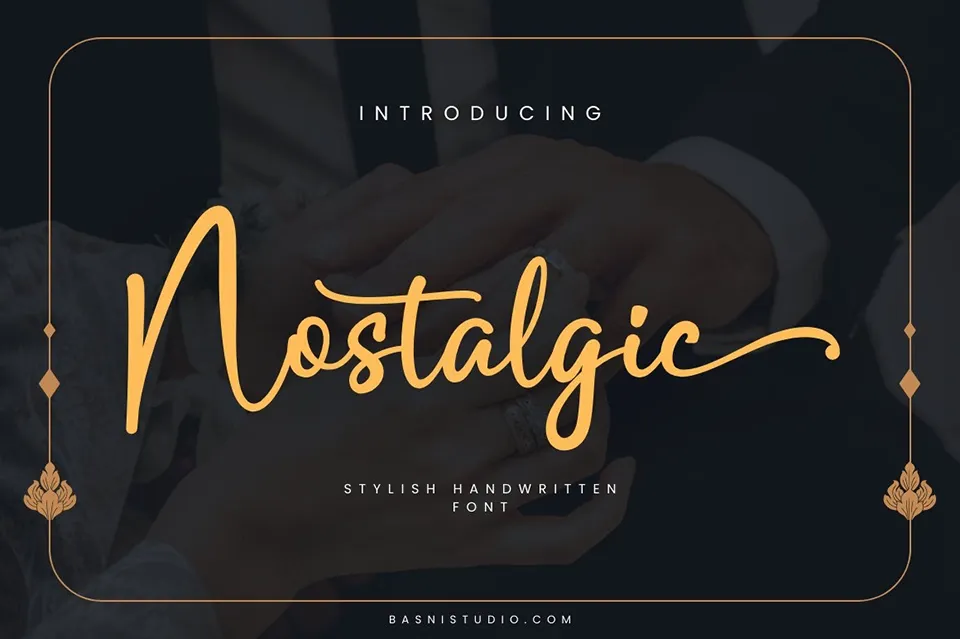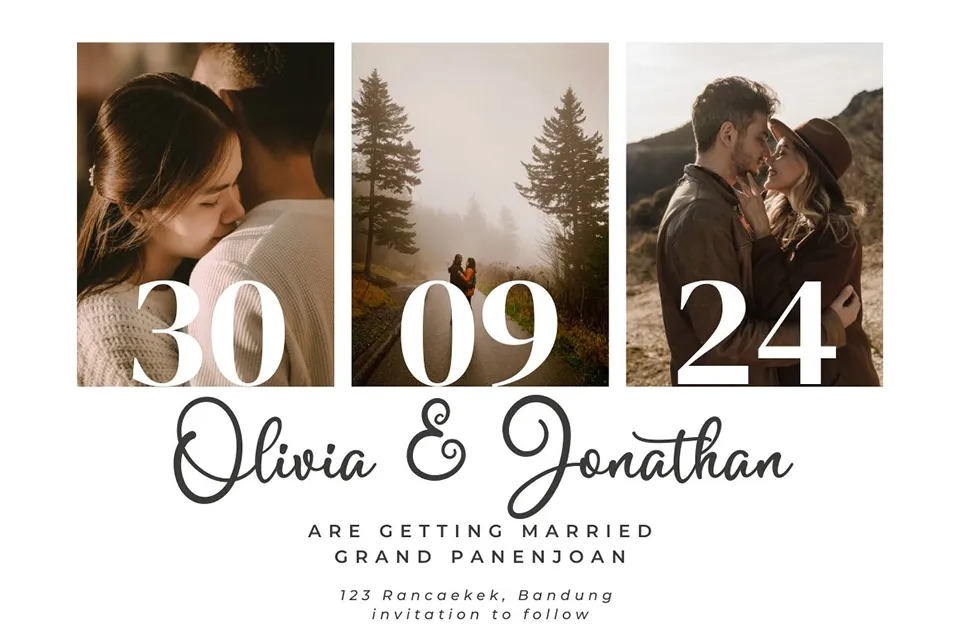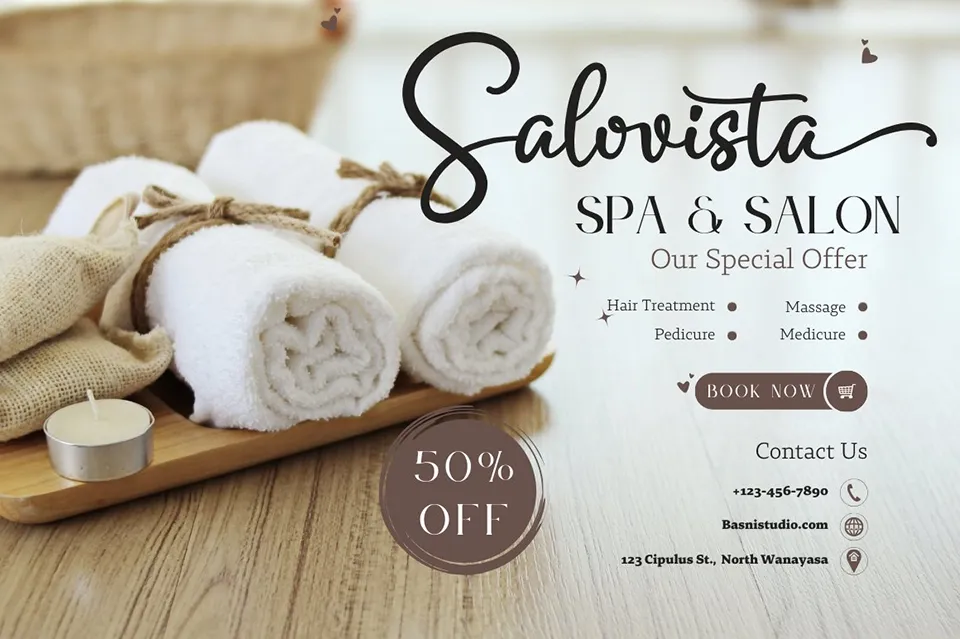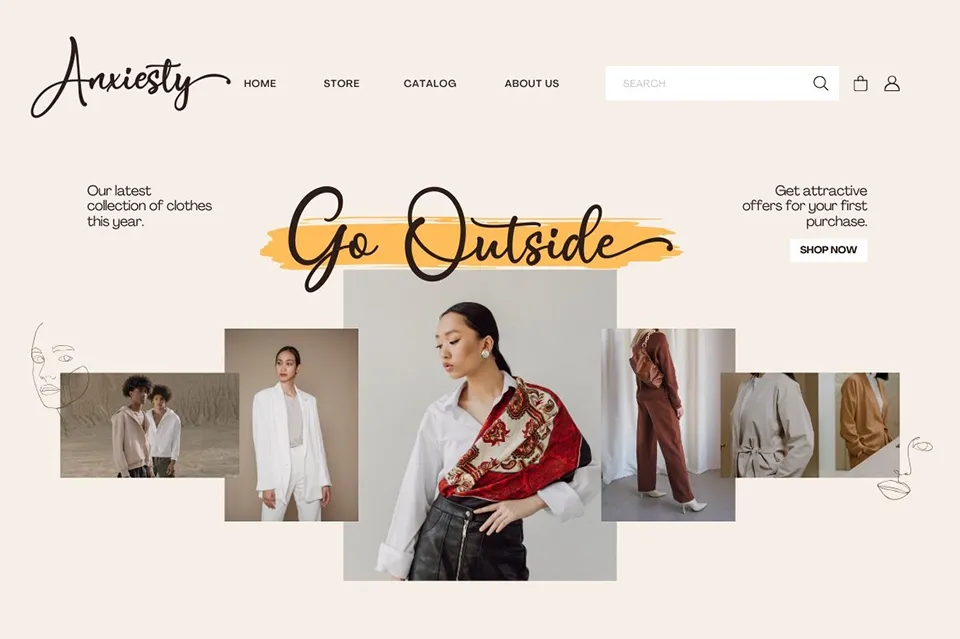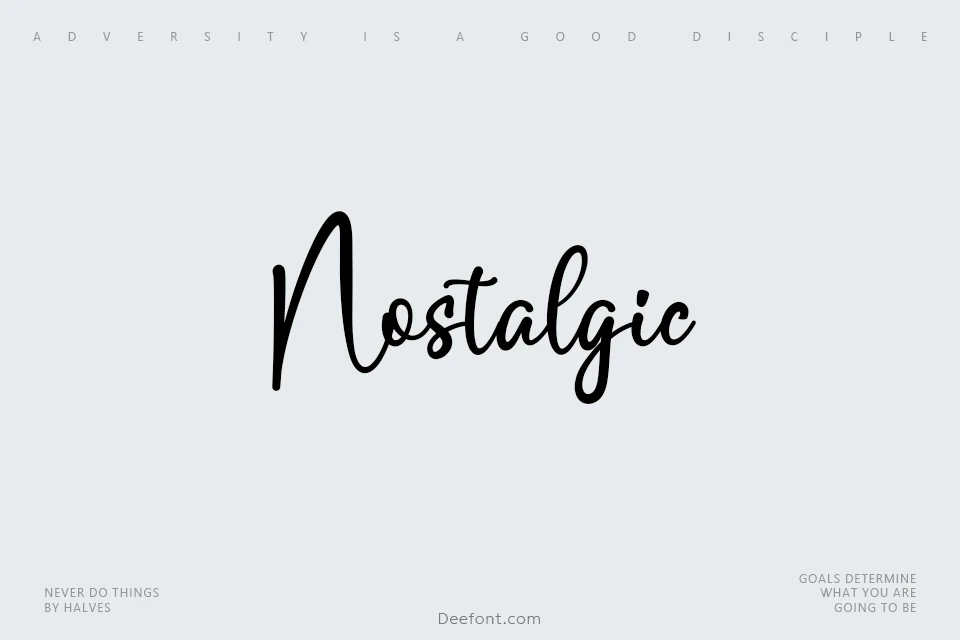
Nostalgic Font
Nostalgic Font is a stylish handwritten typeface designed to evoke a sense of nostalgia, blending vintage charm with modern elegance. Its flowing script and retro-inspired details make it ideal for branding, invitations, packaging, and creative projects that aim to capture warmth and familiarity. By channeling design elements reminiscent of past decades, Nostalgic Font helps designers create memorable and emotionally engaging visuals.